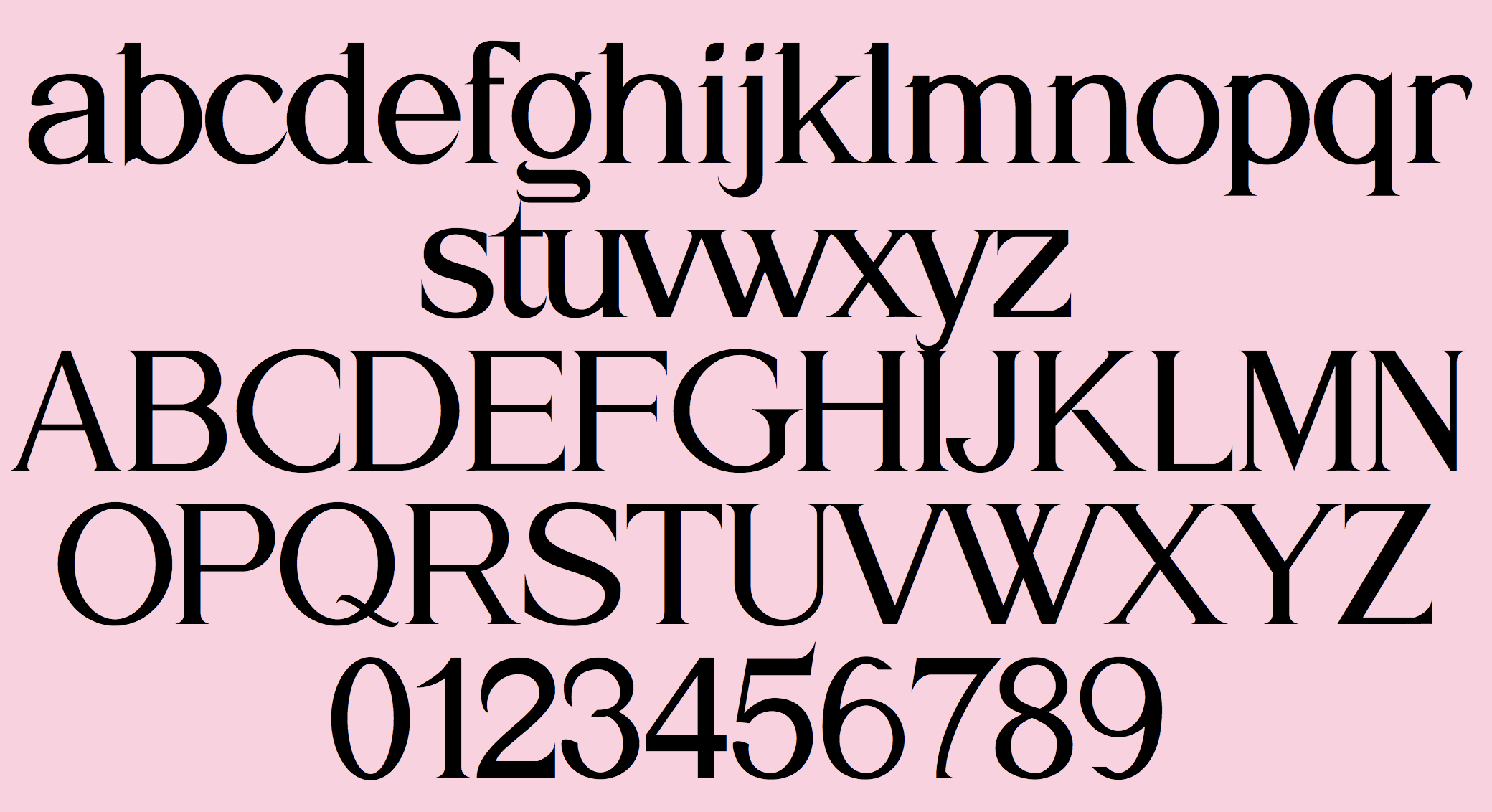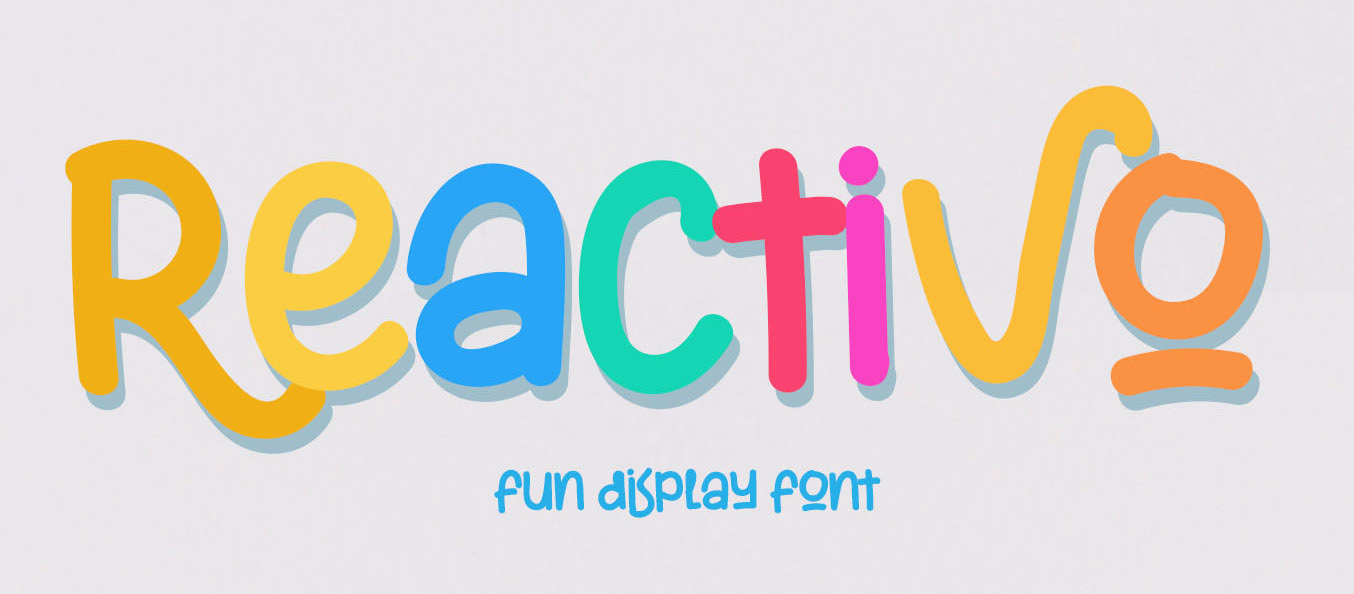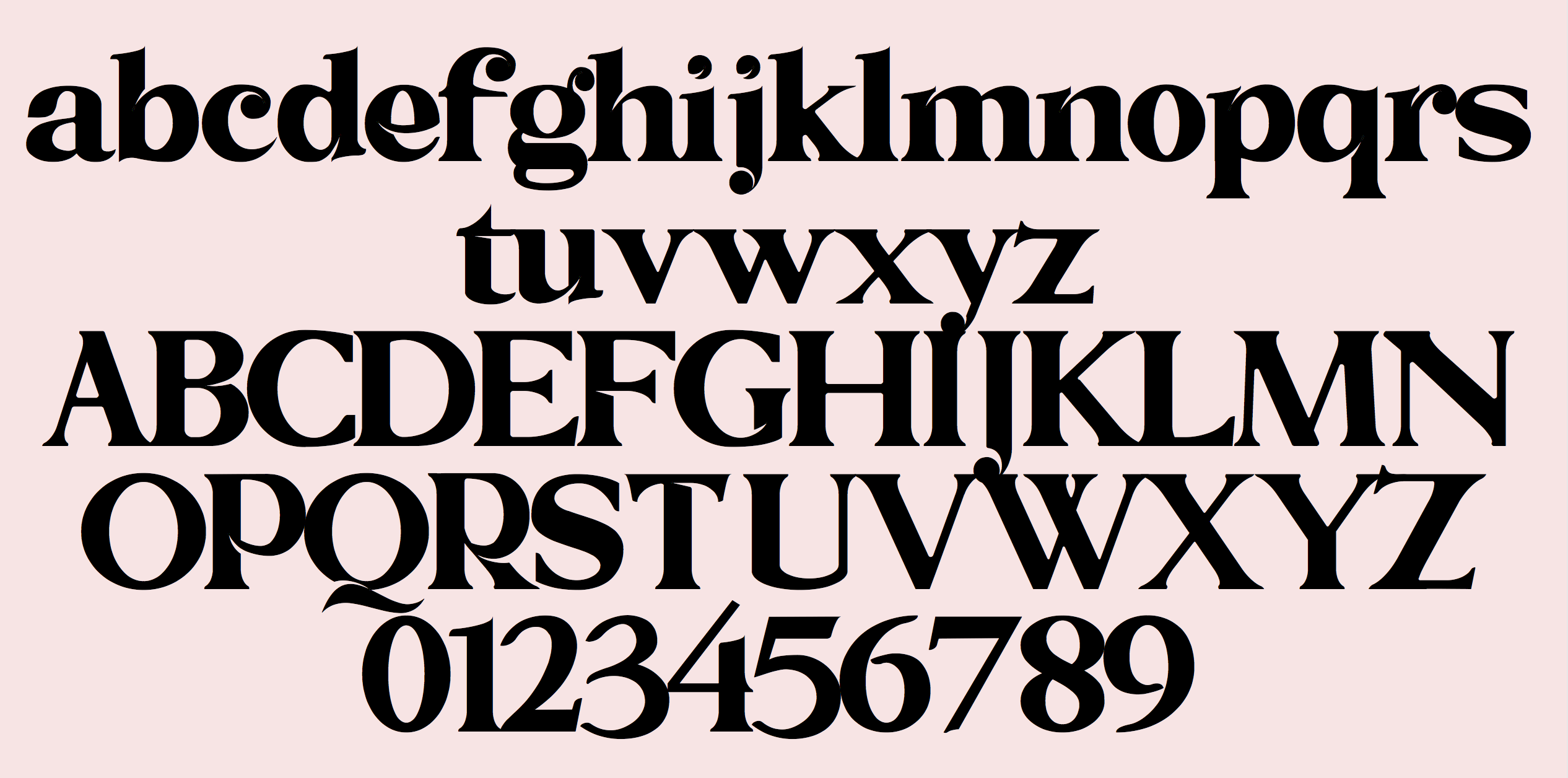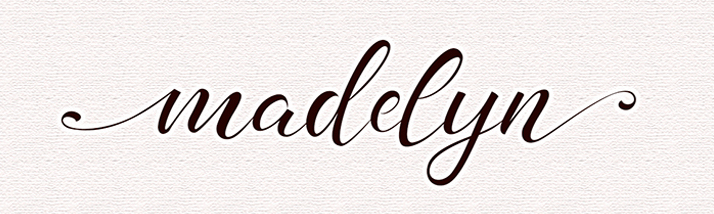
Embun Studio (or: Embuntype) [Aditya Rezki Apriyadi]
Malang, Indonesia-based designer (b. 1996) who set up Embun Studio in 2018. Designer of these free fonts in 2019: Bungalow (script), Perfectly (script), Southern (a signature script), Dorillya (script), Rocketto (script), Gluottine, Janythri, Saithik (script), Mistrain (signage script), Greatquest (a bold script), Hahagia (script), Sanliurfa (for signatures), Reactivo (for children's books), Canthika (script), Hardwork (a signage font), Villaga.
Typefaces from 2020: Zero Hero, Kathiya, Arthens, Brown Sugar, Think, Galapagos (a decorative serif), Brigitta, Candy Cookies, Antharis, Ballisty, Blayer Charles, Starife, Syakira, Think, Black Pearl (a font duo), Madelyn.
Typefaces from 2021: Gilbert Qualifi (a stylish display serif), Brigitka Modern.